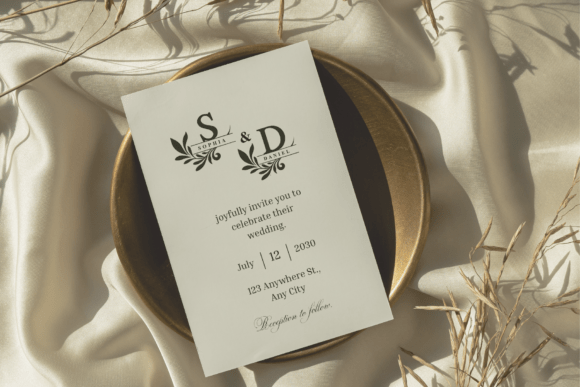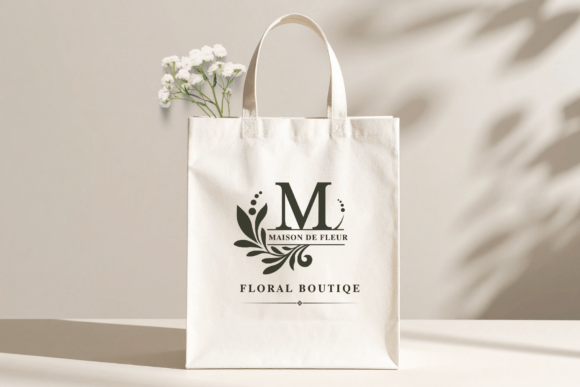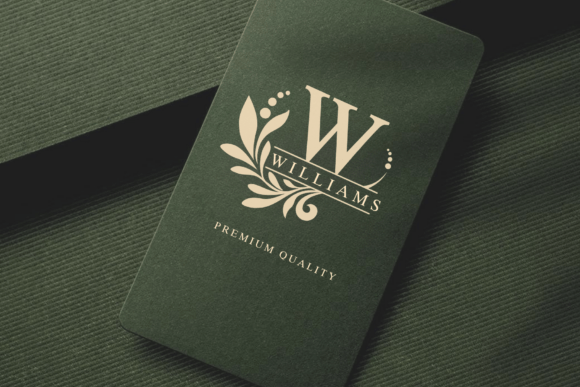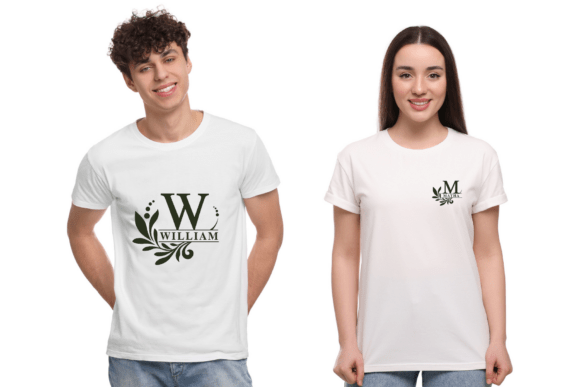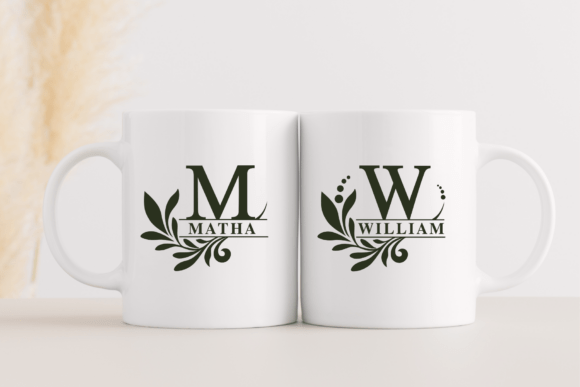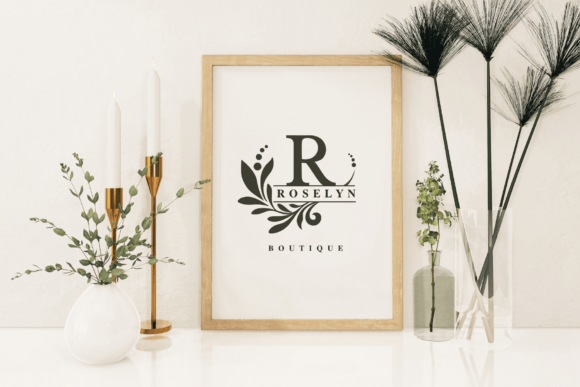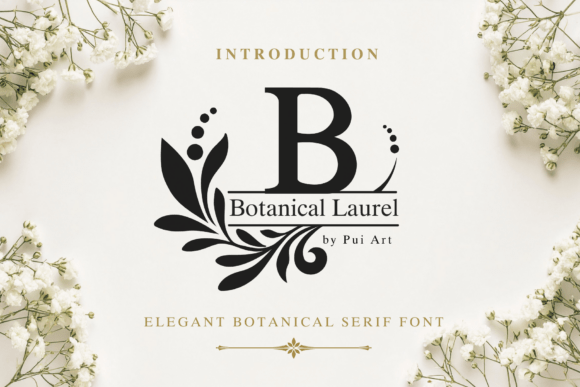
The Elegance of Botanical Laurel Font: A Designer’s Delight
I’ll never forget the time I was working on a wedding invitation project, and my client asked for a font that exuded elegance and sophistication. I scoured the internet, tried out countless fonts, but nothing seemed to fit the bill. That was until I stumbled upon the Botanical Laurel Font. ✨ It was love at first sight! The classic serif letters adorned with laurel leaf flourishes instantly elevated my design, and my client was thrilled. In this article, I’ll share with you why I’m obsessed with this font, its features, and how to make the most of it in your designs.
What I Love About Botanical Laurel Font
- ✨ Elegant and sophisticated: The refined ornamental details create a stylish look that’s perfect for luxury branding, wedding invitations, and high-end designs.
- ✅ Timeless botanical charm: The laurel leaf flourishes add a touch of classic botanical charm, making it ideal for designs that require a sense of tradition and heritage.
- 🌿 Versatile: From monograms to certificates, this font can be used in a variety of projects, making it a great addition to any designer’s font library.
While I adore Botanical Laurel Font, there are a few things to keep in mind: 🤔
- ⚠️ Legibility at small sizes: As with many decorative fonts, Botanical Laurel Font may lose legibility at small sizes. Make sure to test it at different sizes to ensure it works for your project.
- ⚠️ Limited use in body text: Due to its ornamental nature, this font is best used for headings, titles, or short phrases rather than body text.
The Botanical Laurel Font was inspired by the classic botanical illustrations of the 18th century. The designer, a lover of nature and art, wanted to create a font that captured the essence of elegance and sophistication. The result is a font that’s both timeless and versatile, perfect for a wide range of design projects.
| Font Name | Botanical Laurel Font |
| Author | Pui Art |
| What type of projects is Botanical Laurel Font best suited for? | Luxury branding, wedding invitations, certificates, stationery, and personalized designs. |
| Can I use Botanical Laurel Font for body text? | No, it’s best used for headings, titles, or short phrases due to its ornamental nature. |
| Is Botanical Laurel Font available in different weights or styles? | Yes, it comes with various stylistic alternates and decorative elements to add versatility to your designs. |